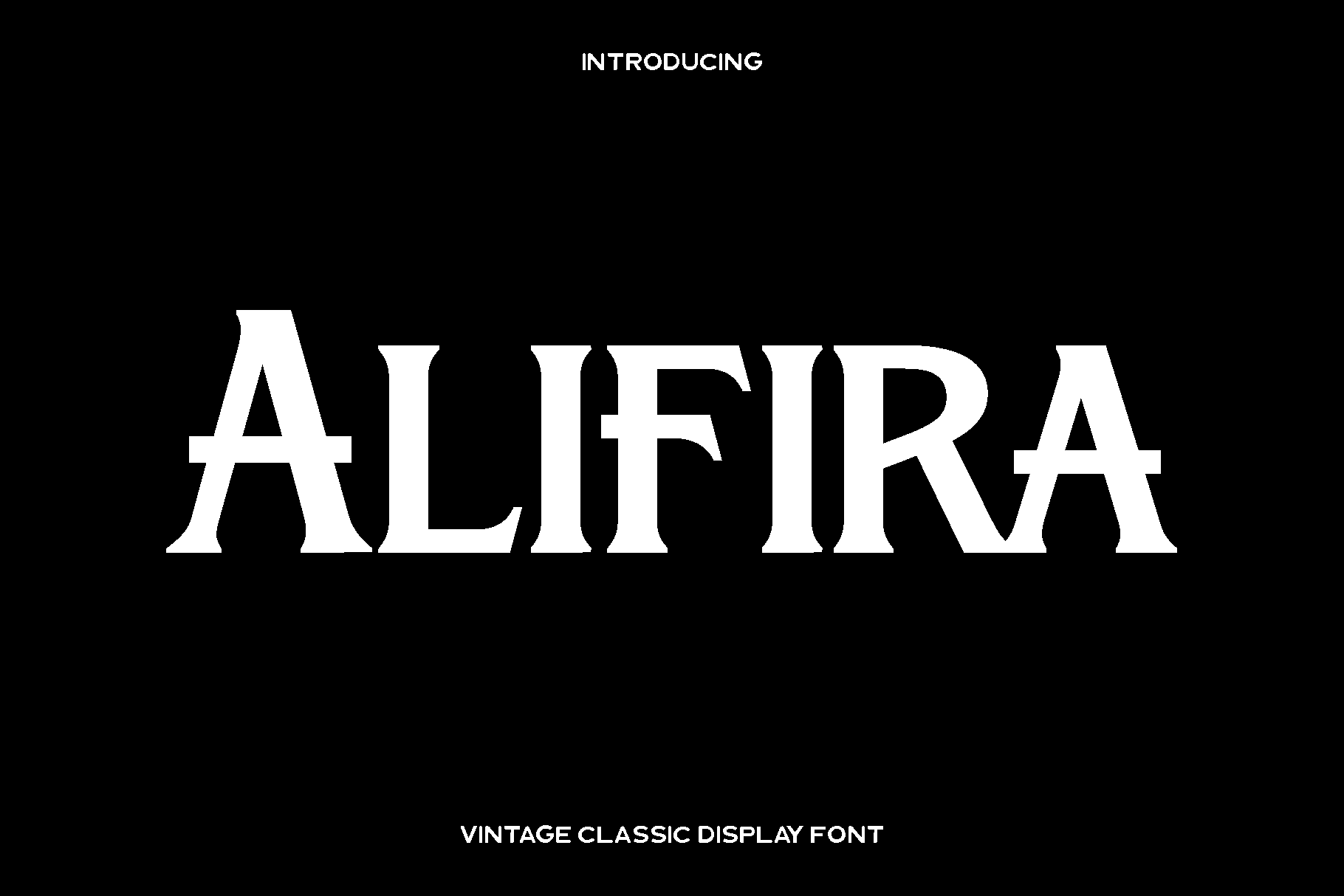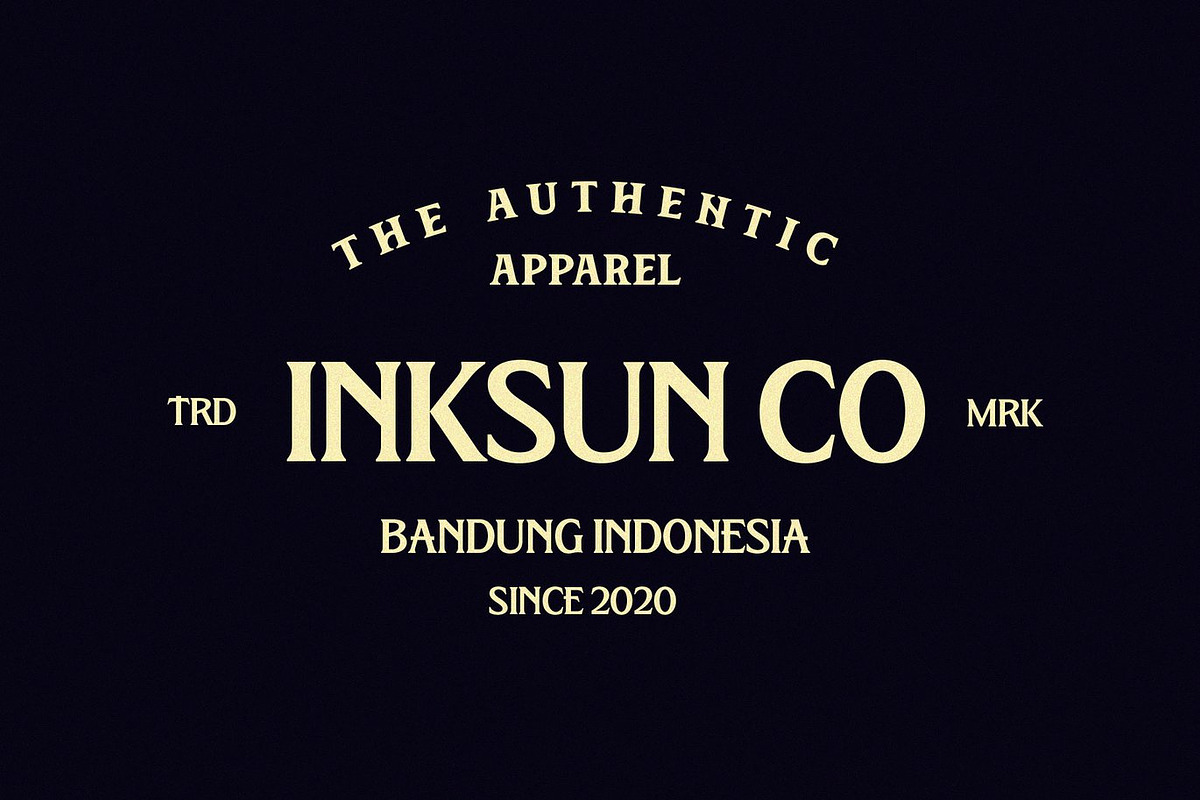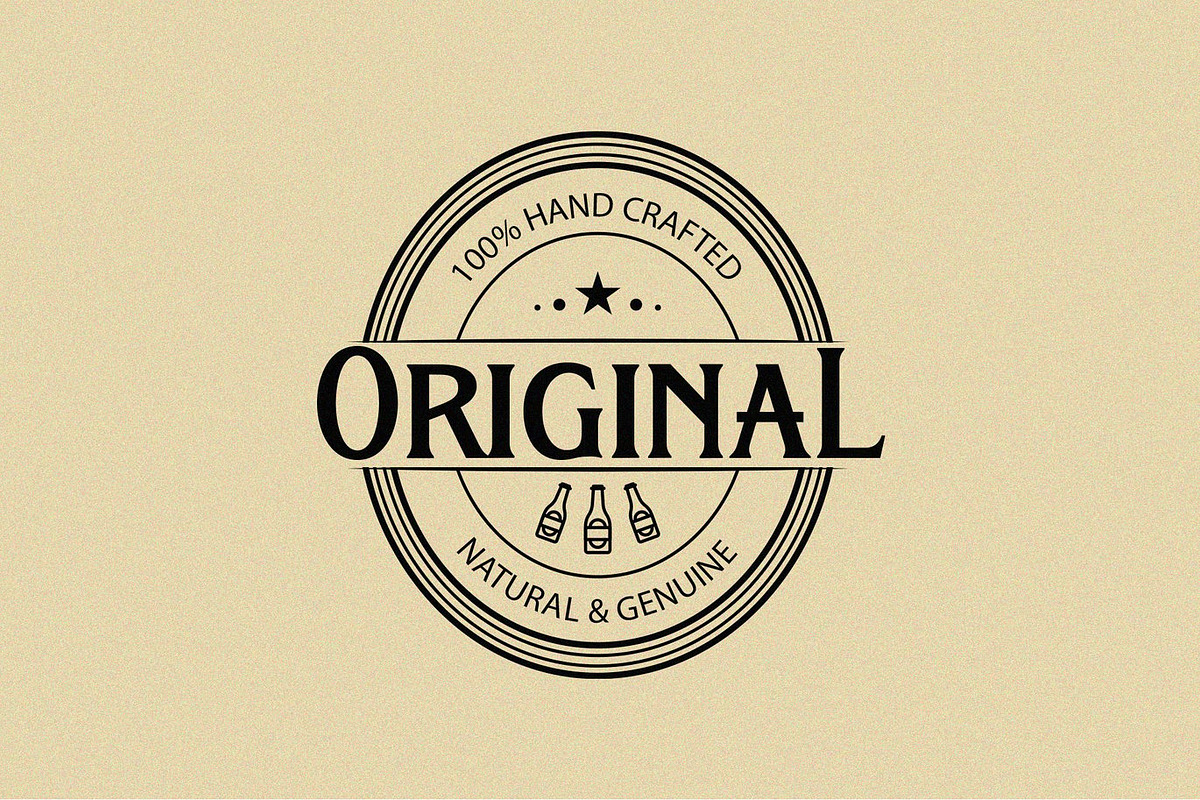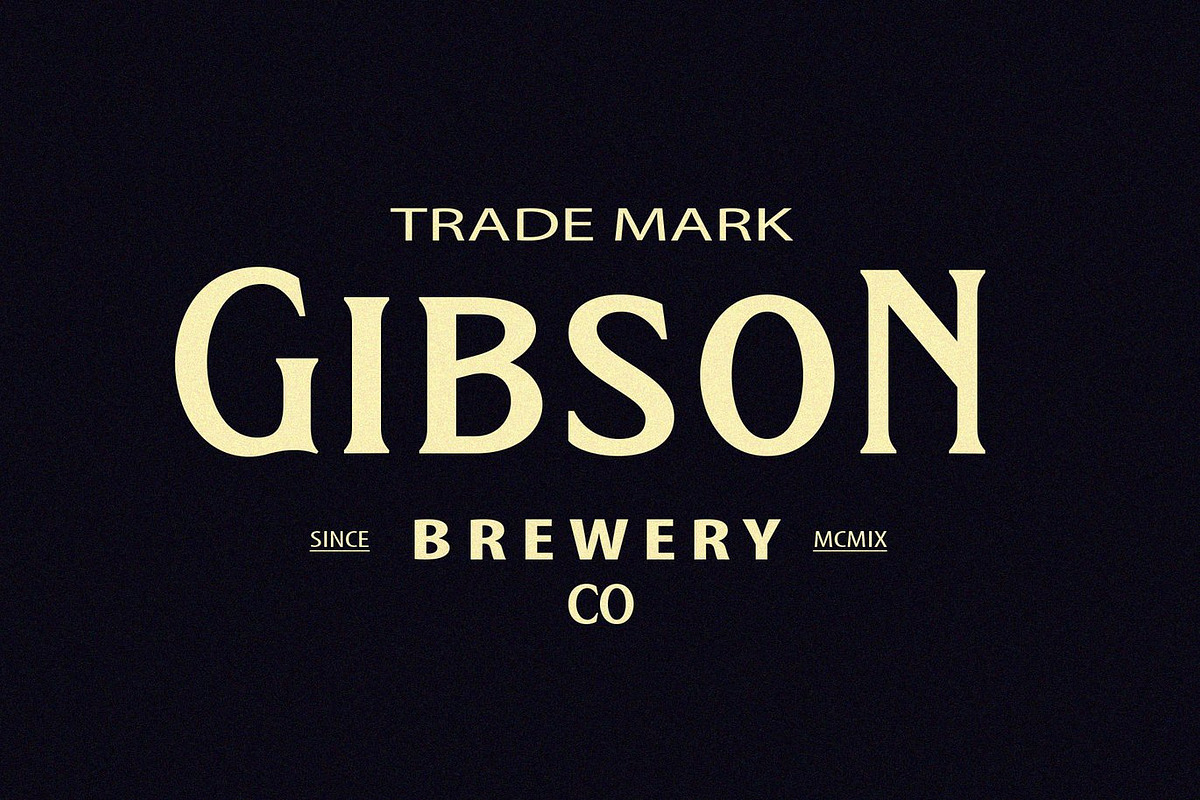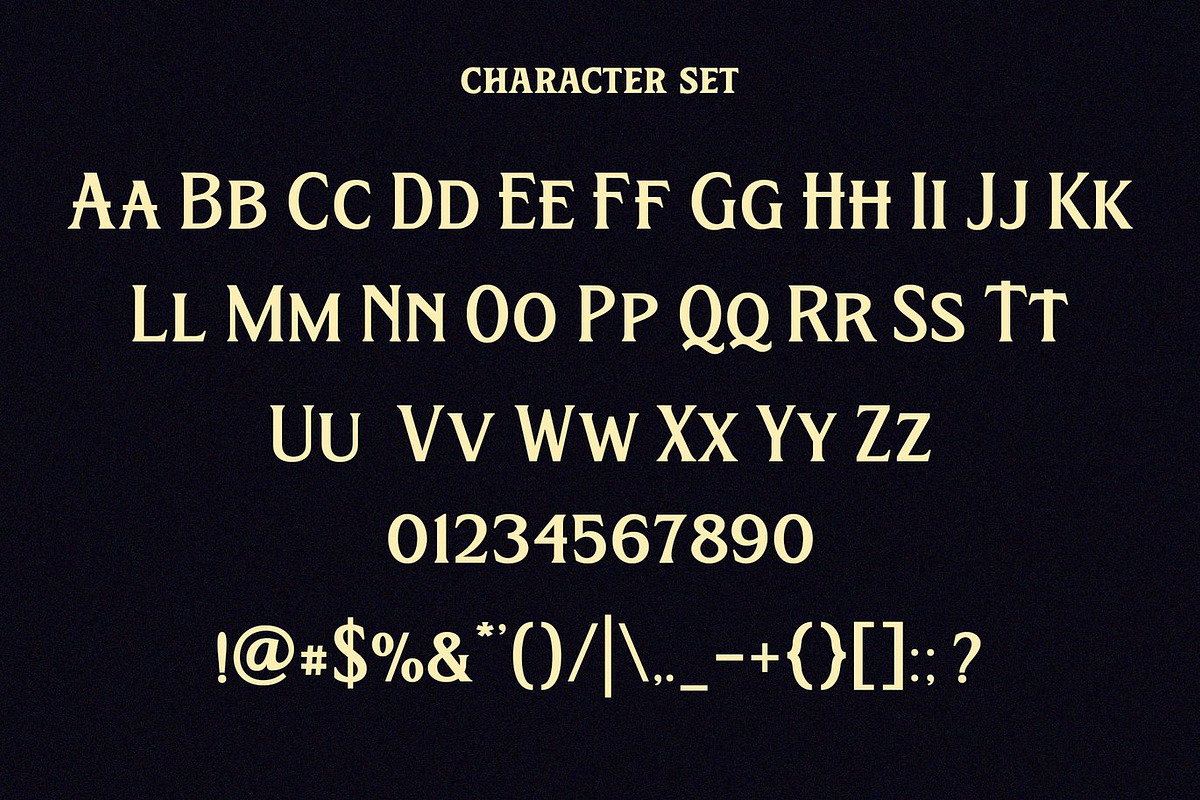
Alifira - Vintage Classic Font
Alifira is a beautifully crafted vintage display font that brings timeless elegance and classic charm to your designs. Inspired by retro typography and traditional lettering styles, Alifira captures the sophistication and warmth of bygone eras while remaining versatile for modern creative projects. Its refined letterforms and carefully designed proportions make every word feel distinctive, stylish, and memorable.
Perfect for logos, packaging, posters, branding, editorial layouts, and signage, Alifira adds a touch of nostalgia while maintaining a polished, professional appearance. Its all-caps design creates a strong visual presence, ideal for headlines and attention-grabbing titles. The font’s subtle details, combined with its classic aesthetic, make it a standout choice for designers seeking a refined vintage feel.
Alifira also offers functional versatility with multilingual support, numerics, alternates, and ligatures, allowing designers to craft unique compositions that remain readable and elegant. Its high-quality OTF and TTF formats ensure seamless use across print and digital projects, bringing a consistent and stylish finish to every creation.
Alifira Vintage Classic Font Features:
• All-caps characters ready
• Numeric and functional glyphs included
• Alternate and ligature characters for creative typography
• Multilingual support for broad language compatibility
Alifira is the perfect tool to elevate your designs with a classic, vintage touch, making every project feel special and timeless.